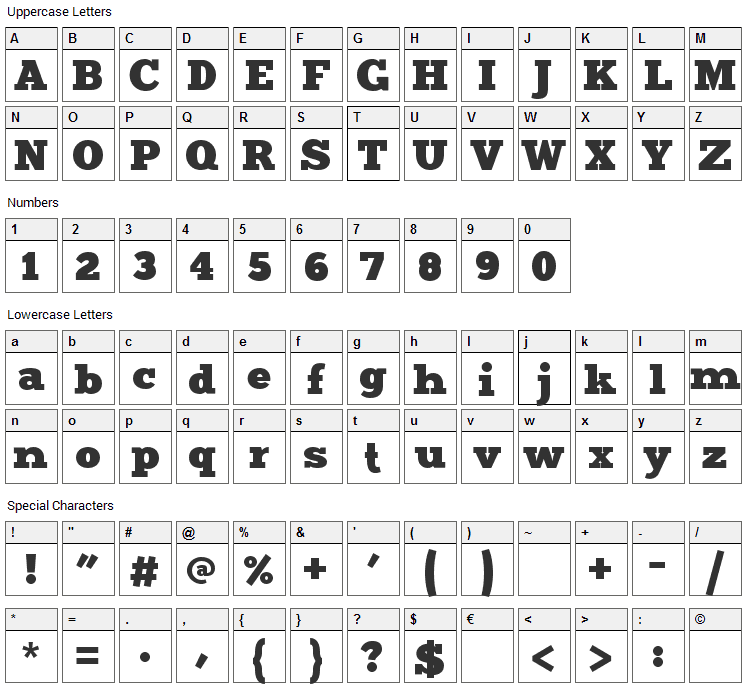
Merit Font
Font Name:Merit
Developer:Scott Simpson
Category:Basic > Serif
I designed Merit as part of a student project to redesign the Home Depot's brand identity (you can see this on my website, wmscottsimpsonjr.com). As such, I was trying to create a heavy slab serif that conveyed a friendliness while exhibiting a hardware kind of look. It's free for personal or commercial work, but I always appreciate donations.